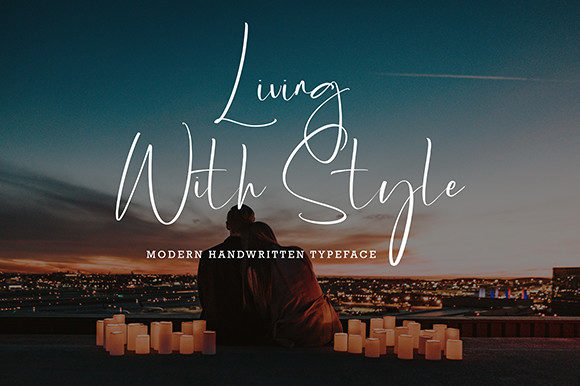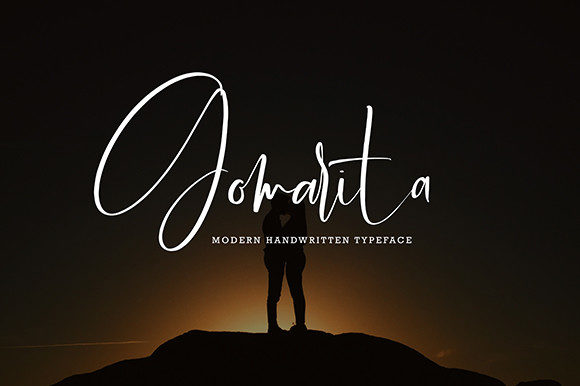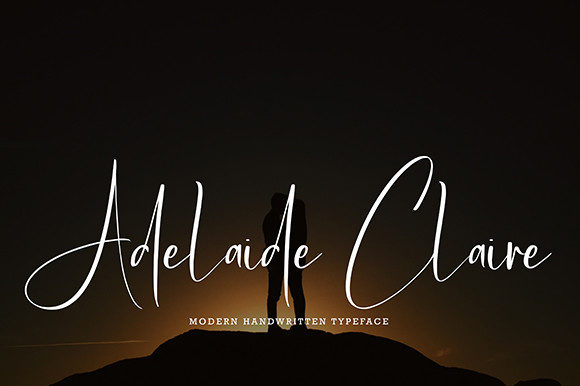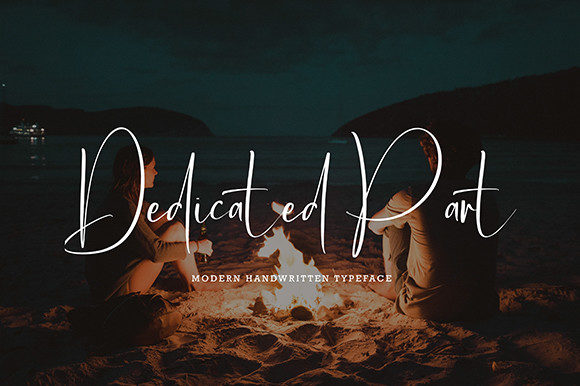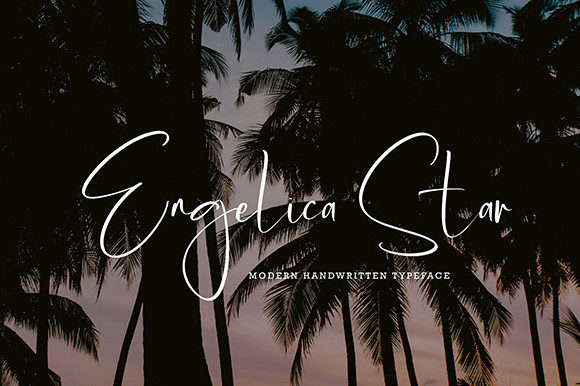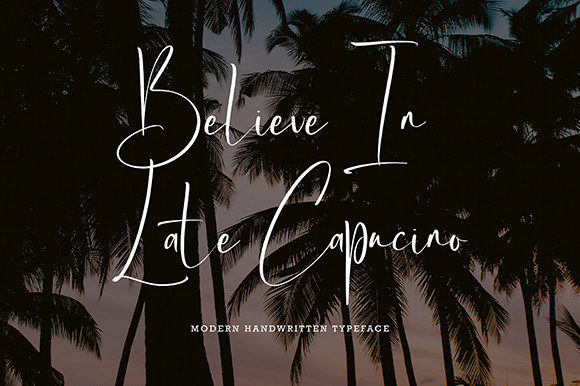
The Almitgor Font: A Luxury Spark for Your Design Projects
Have you ever been in the middle of a design project, pouring your heart and soul into it, and suddenly realized that something is missing? You’re not quite sure what it is, but you know it’s not quite coming together as you’d like. For me, that something was often the perfect font. I’ve spent hours scouring the internet for that one special typeface that would elevate my design from good to great. And then, I discovered Almitgor.
Almitgor is a beautiful and light handwritten font with a unique feel and a stunning impact. It will add a luxury spark to any design project that you wish to create! This font is PUA encoded, which means you can access all of the amazing glyphs and ligatures with ease.
An Honest Review of Almitgor
- ✨ Unique and elegant handwritten style
- ✅ PUA encoded for easy access to glyphs and ligatures
- 💫 Perfect for luxury branding, packaging, and editorial design
- 👍 Highly legible and versatile
While Almitgor is an amazing font, there are a few things to keep in mind. 🤔 For example, it’s a relatively light font, so it may not be the best choice for body text or small sizes. ⚠️ Additionally, some users may find the ligatures and glyphs to be a bit finicky to work with.
The Backstory of Almitgor
Almitgor was designed by a talented typographer who was inspired by the beauty of handwritten script. The font is named after a fictional character who embodies the qualities of elegance, sophistication, and refinement. The designer’s goal was to create a font that would capture the essence of luxury and glamour, while also being highly legible and versatile.
| Author | Pineungtype & Missinklab |
Q: What is PUA encoding, and how does it work?
A: PUA (Private Use Area) encoding is a way of encoding fonts that allows designers to access additional glyphs and ligatures. This means that you can use Almitgor’s full range of features, including swashes, alternates, and ornaments.
Q: Is Almitgor suitable for body text?
A: While Almitgor is a beautiful font, it’s primarily designed for display use. It’s a relatively light font, so it may not be the best choice for body text or small sizes.